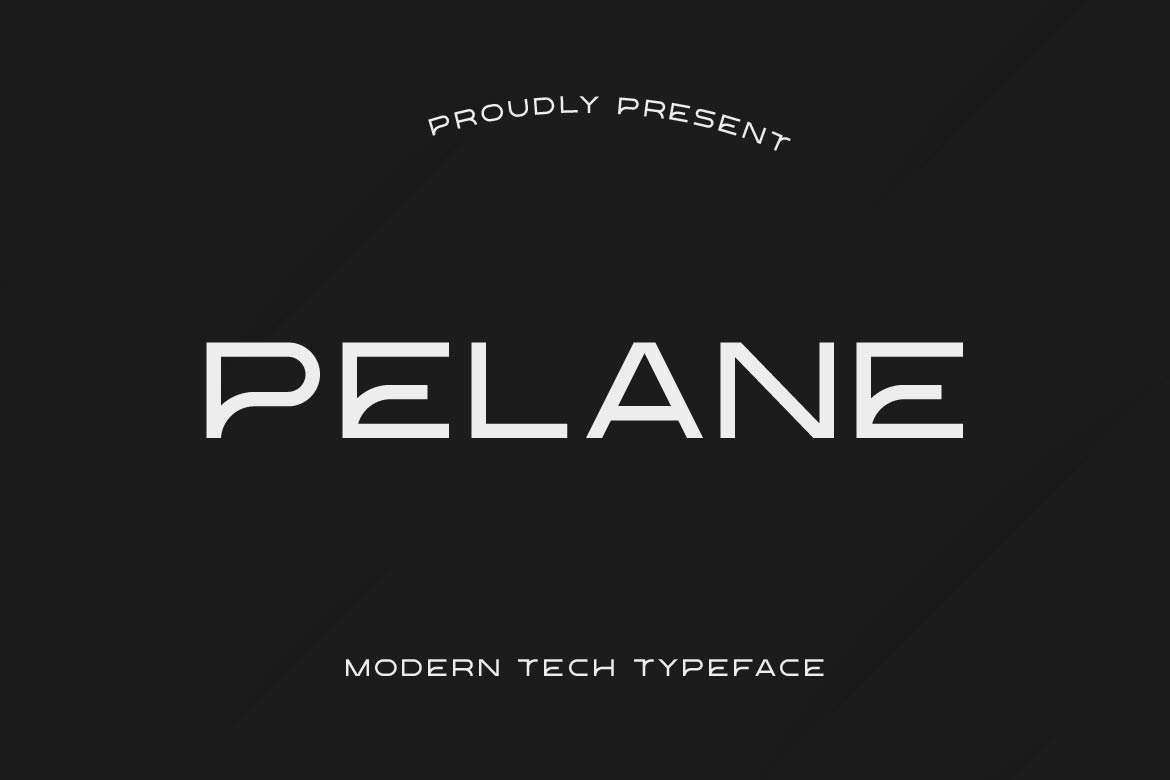
- Pelane – Clean Tech Typeface with Alternates for Web & Apps
Pelane is a modern technology-inspired sans serif typeface designed with smart ligatures and stylish alternates to give your typography a unique digital personality. Built for the future of design, Pelane combines clean geometry, sharp structure, and smooth rhythm—perfect for UI/UX, apps, websites, SaaS platforms, tech branding, and innovative visual systems.
What makes Pelane stand out is its rich OpenType features. With creative ligatures and alternate characters, you can craft distinctive wordmarks, logos, and headlines that feel custom and forward-thinking. Pelane stays highly readable on screens while delivering a strong, futuristic presence in both small interfaces and large display layouts.
Pelane isn’t just a font — it’s a technology typeface with built-in style intelligence.